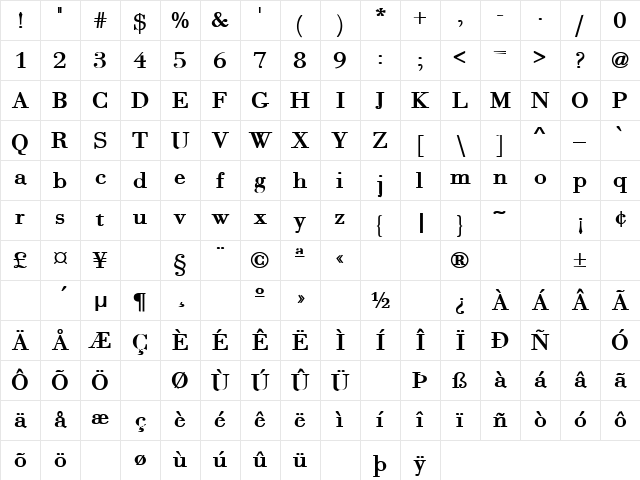
Complete Any Color 9 Bold glyph index. Displaying only characters natively supported by Any Color 9 Bold font.
Any Color 9 is a composed and adaptable typeface that performs quietly and consistently across a wide range of design contexts. Its bold stroke weight gives it real presence on the page.